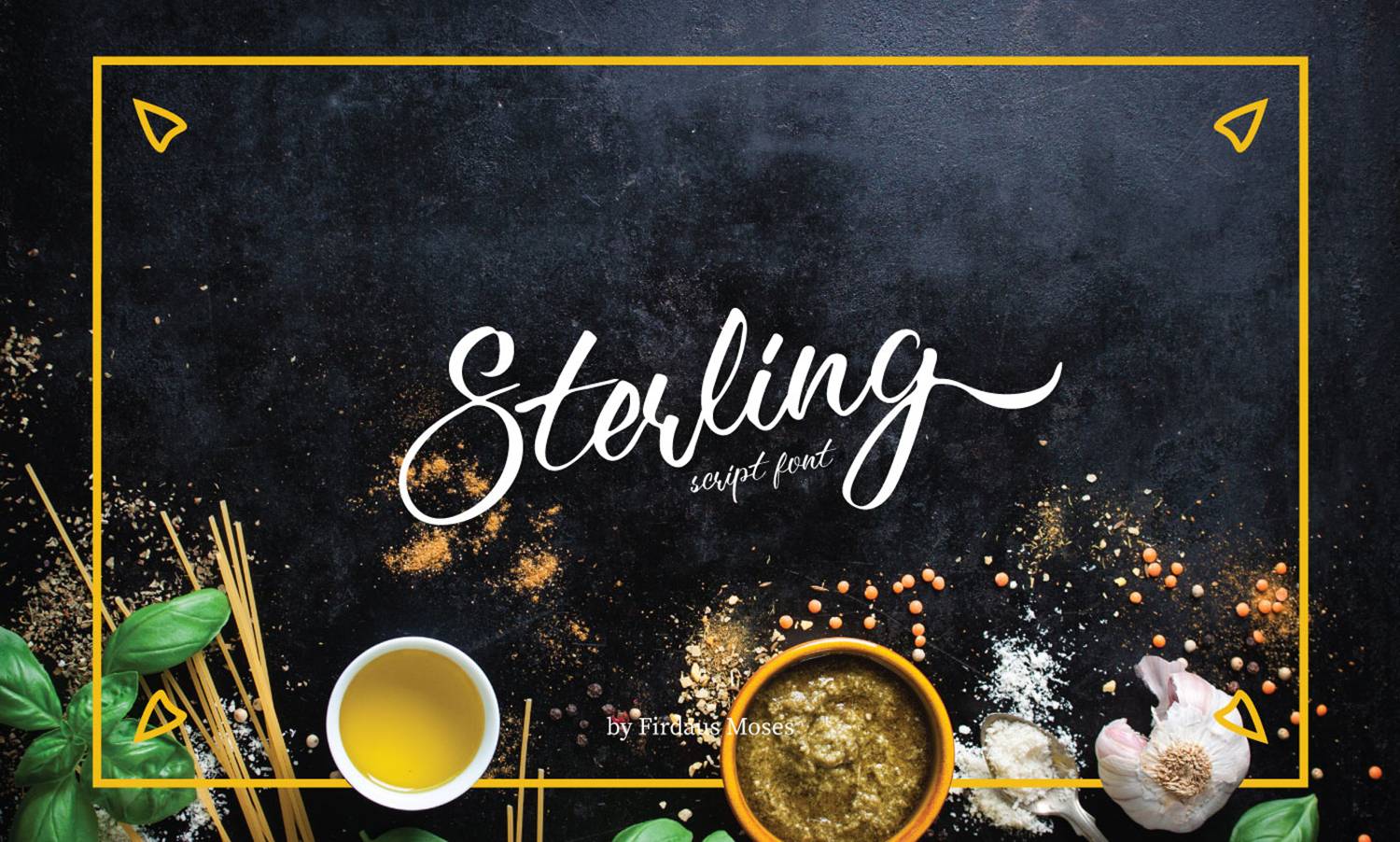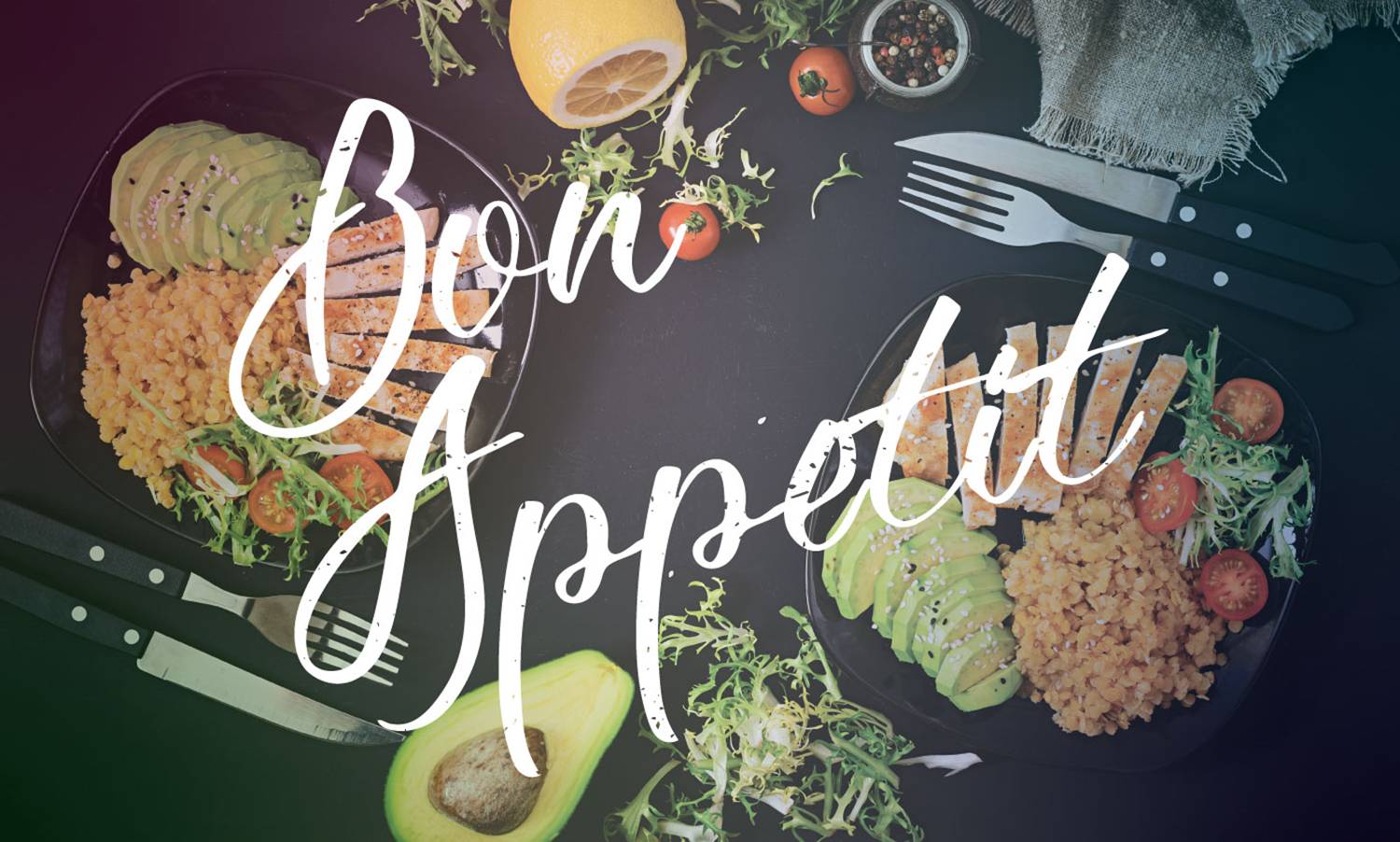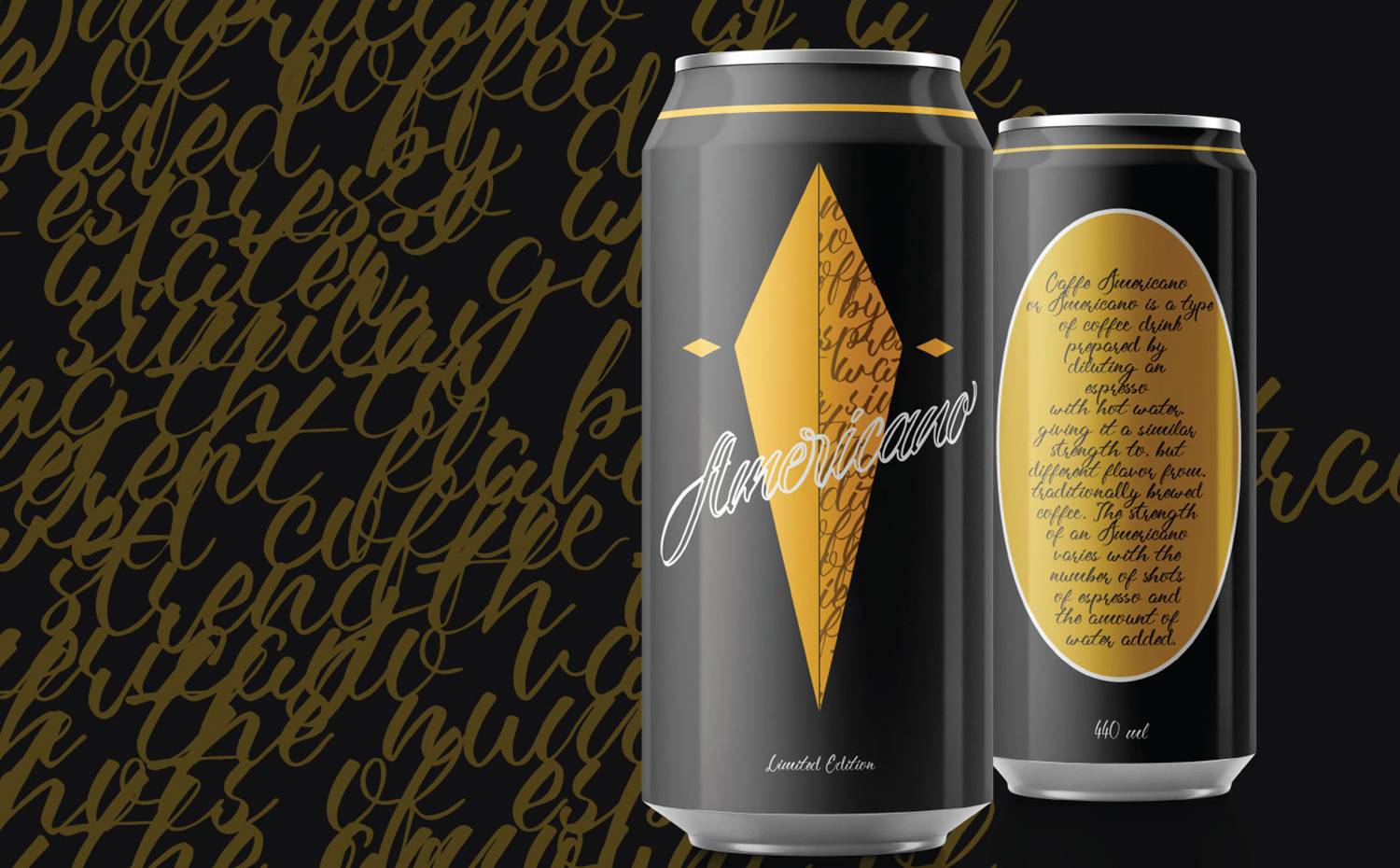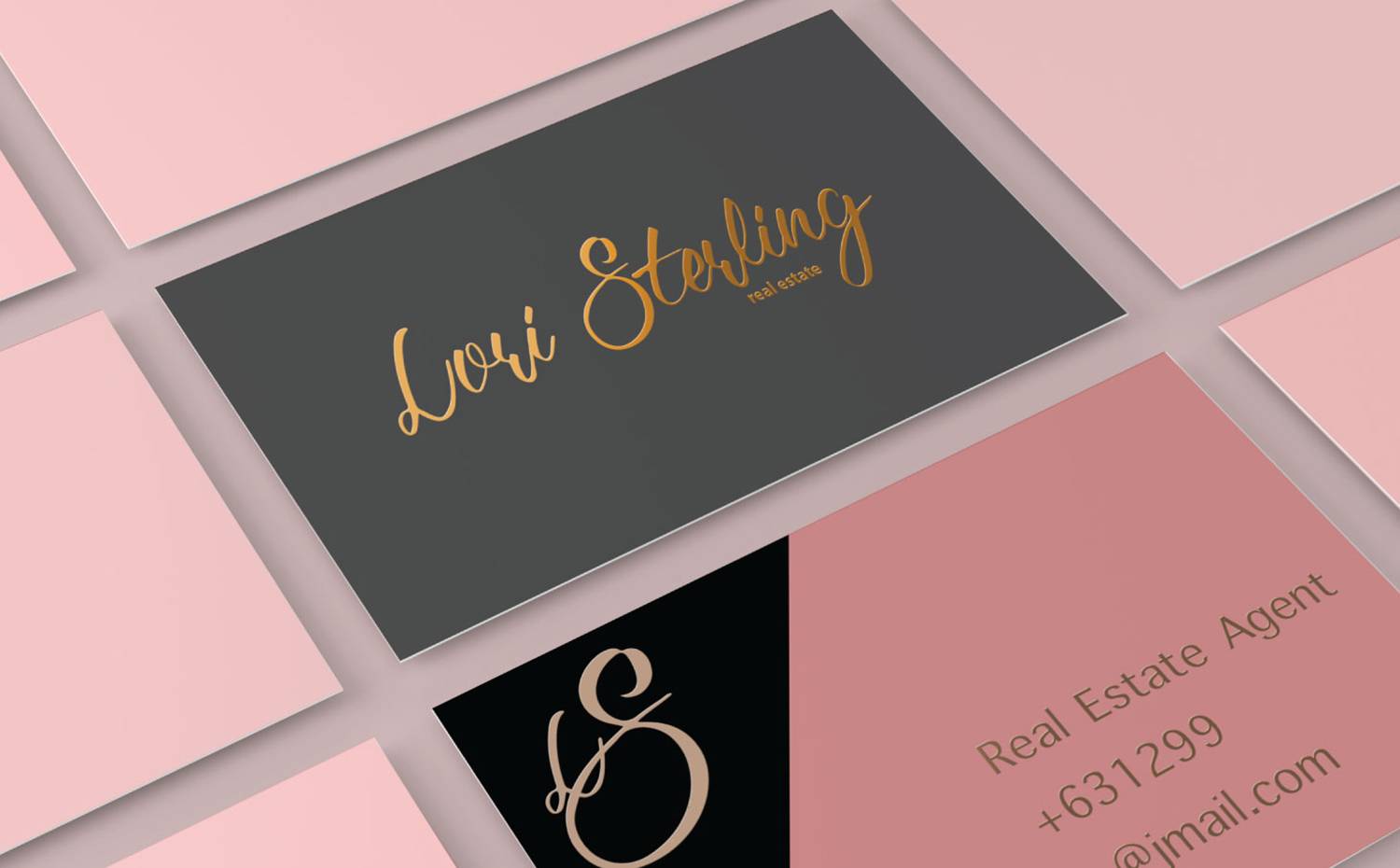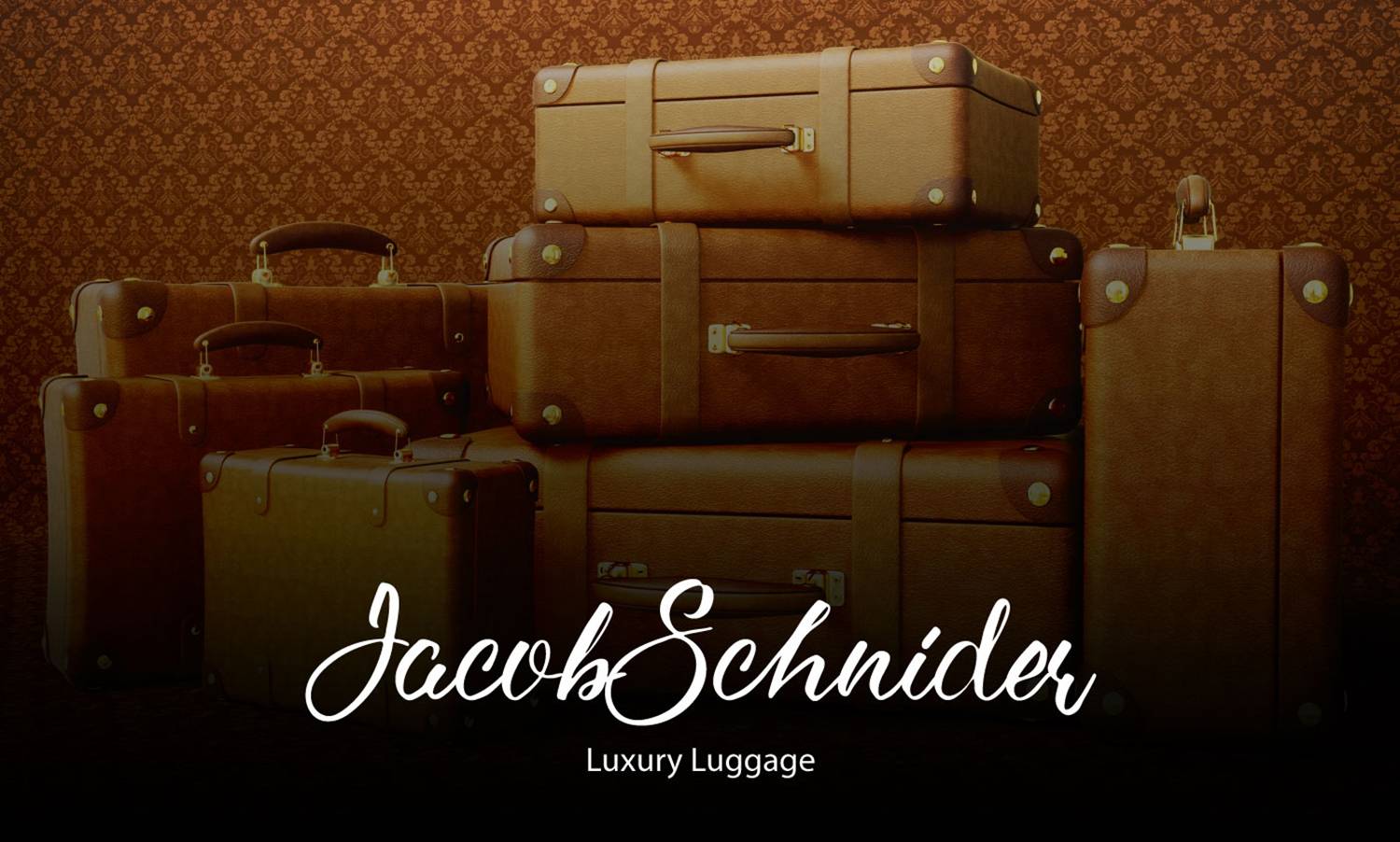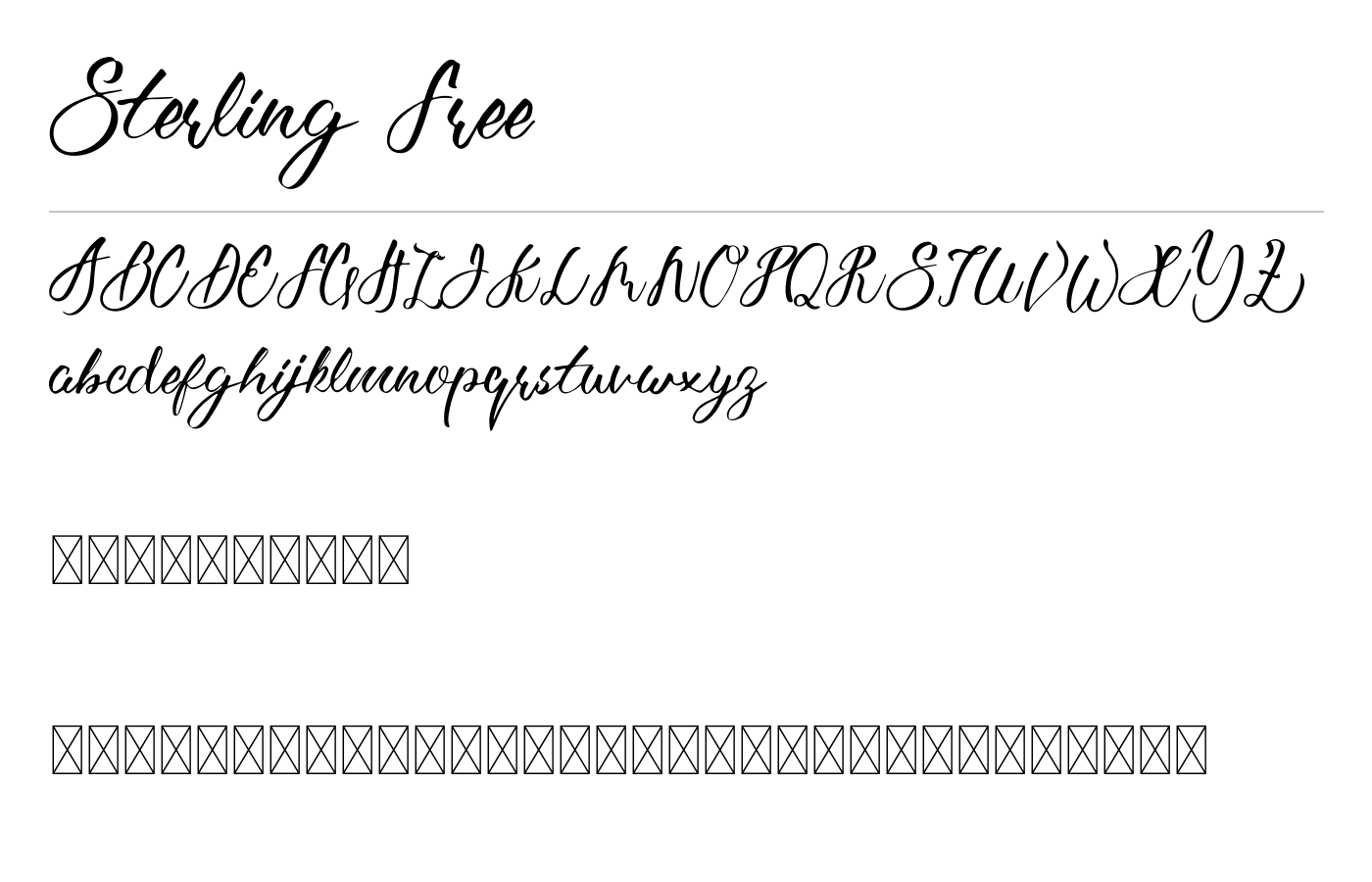
Sterling is an elegant script font featuring smooth, flowing lines and refined, calligraphic strokes that give it a sophisticated, handwritten charm. Its medium weight and graceful letterforms work beautifully for invitations, branding, and headlines where a touch of class and creativity is desired. This font suits projects that call for a personalized, fancy feel, such as luxury packaging, wedding materials, and stylish editorial designs.
Sterling Font
About Sterling Font